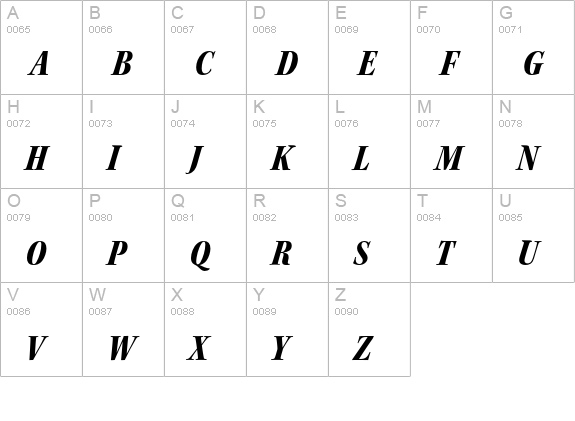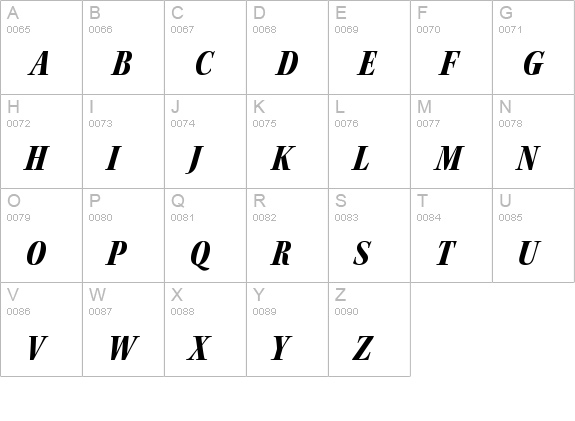
Kepler Std Black Condensed Italic Subhead Font Details
Kepler Std Black Condensed Italic Subhead is a maximum-weight, dramatic, condensed-width, italic variant in the Kepler typeface family \xE2\x80\x94 well suited to maximum-impact headlines, posters, and packaging.
The Kepler Std Black Condensed Italic Subhead font is a bold and dynamic typeface that exudes power and elegance. Its condensed form adds a touch of modernity and sophistication, making it perfect for eye-catching subheadings and titles. With its sleek and slanted italics, this font adds a unique twist to any design project, giving it a sense of movement and energy. The black weight of the font ensures that your text will stand out and grab attention, making it ideal for headlines and subheadings that need to make a bold statement. What makes this font even more appealing is that it is freely available to download at FontsMarket.com. Whether you're a designer working on a commercial project or a student looking to add a touch of professionalism to your presentations, you can now access this stunning font without any cost. The Kepler Std Black Condensed Italic Subhead font is versatile and can be used across various mediums, including print and digital. Its clean and crisp letterforms ensure legibility at any size, making it suitable for both small captions and large banners. With its modern and stylish appearance, this font is a great choice for projects that require a contemporary and professional aesthetic. Its condensed form allows for efficient use of space while still maintaining a strong visual impact. In conclusion, the Kepler Std Black Condensed Italic Subhead font is a must-have for designers and creatives looking to add a touch of elegance and sophistication to their projects. And the best part is, it is freely available to download at FontsMarket.com, giving you access to this stunning typeface without any cost. So why wait? Grab this font and elevate your designs to new heights.